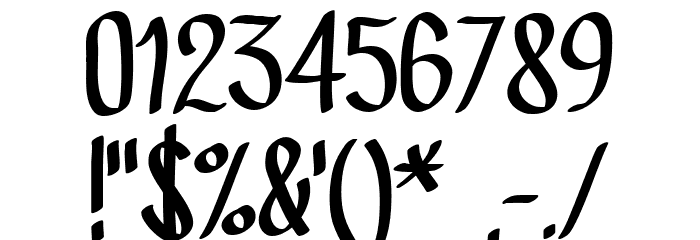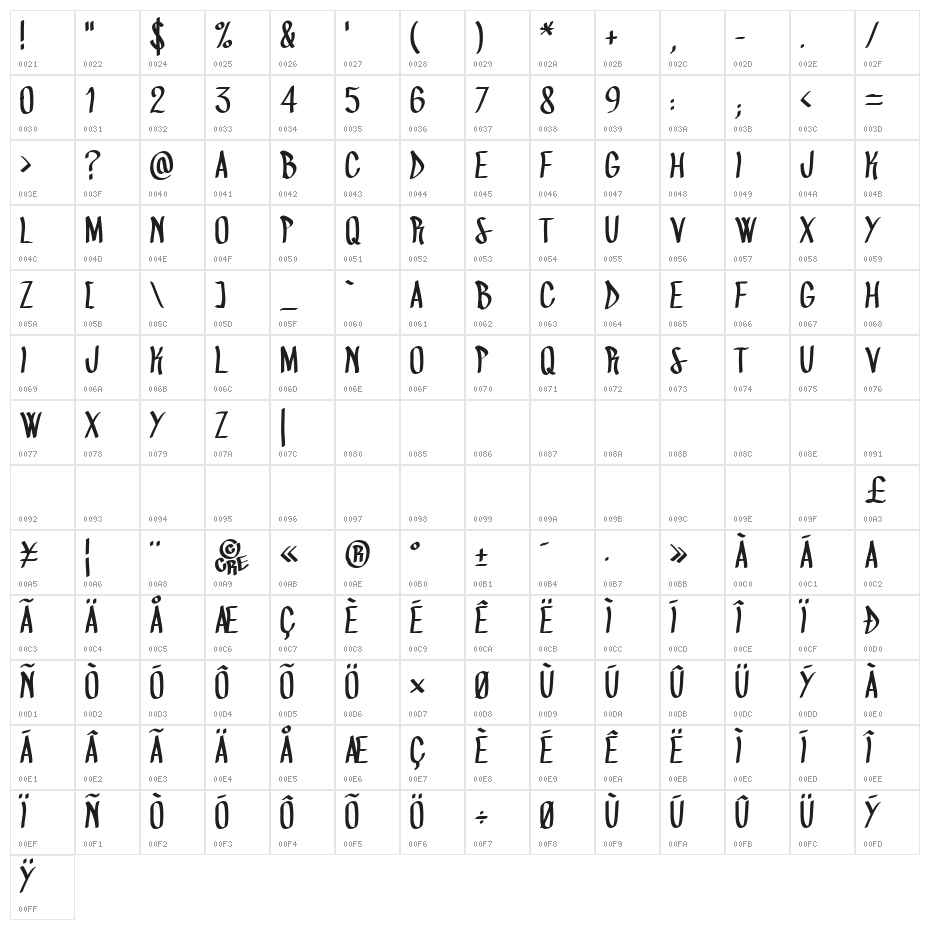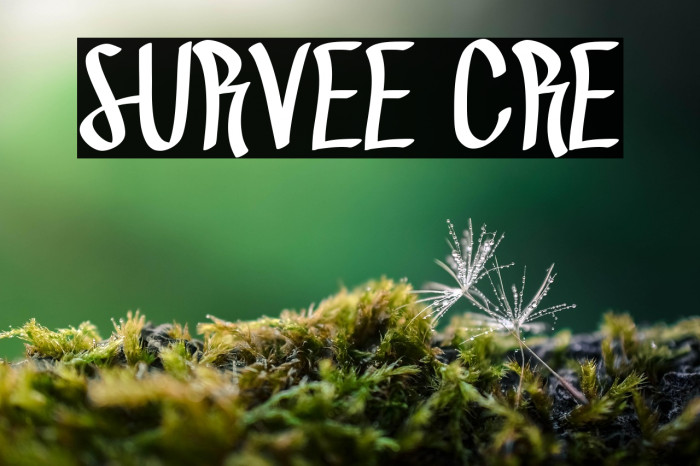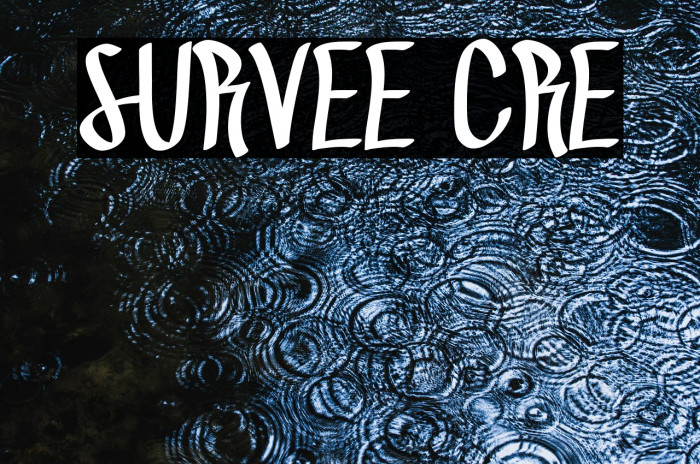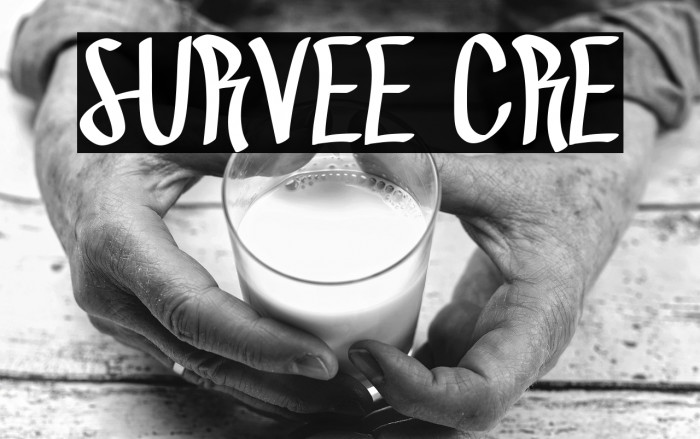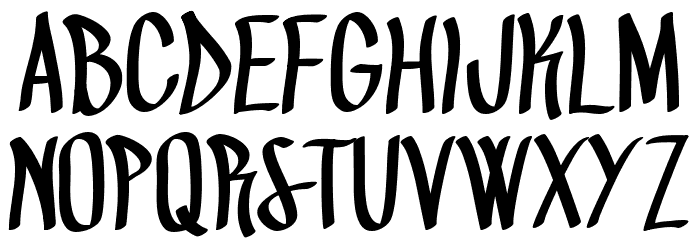
SURVEE CRE Font
SURVEE CRE Description
This font features a bold and dynamic handwritten style, characterized by its thick, brush-like strokes and playful, informal appearance. The letters are slightly slanted, adding a sense of movement and energy. The uppercase and lowercase letters maintain a consistent style, with rounded edges and varying stroke widths that give it a lively and approachable feel. The numbers and special characters are designed to match the overall aesthetic, ensuring a cohesive look across all text elements. This font is perfect for projects that require a personal touch or a creative flair.